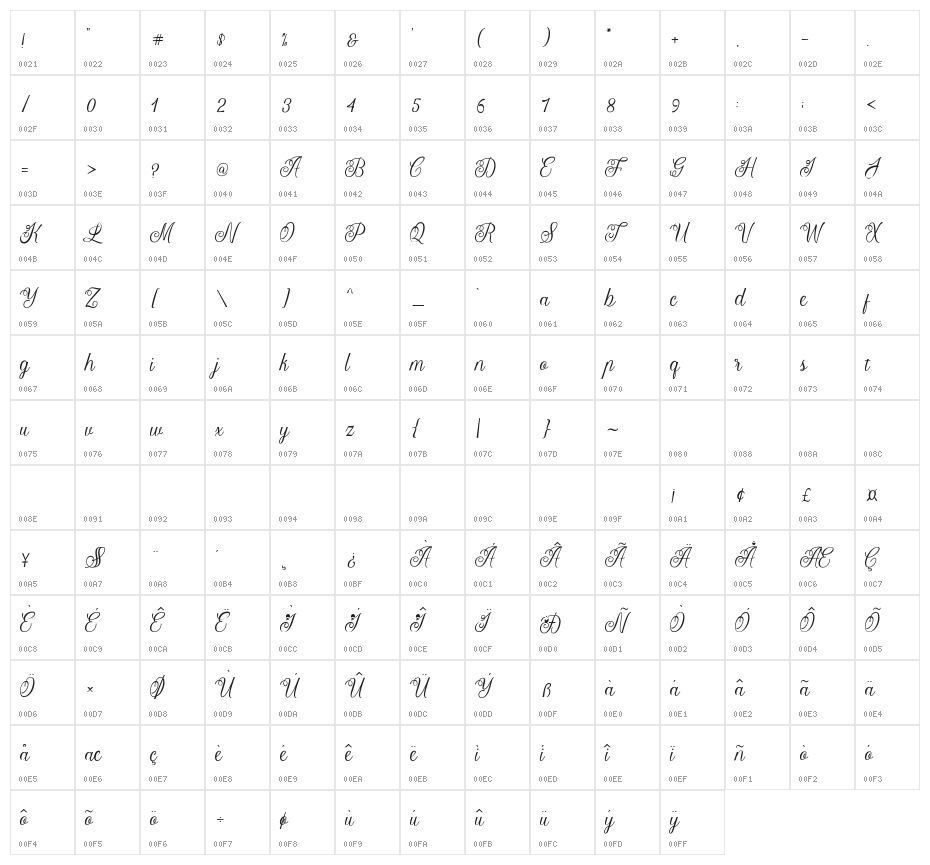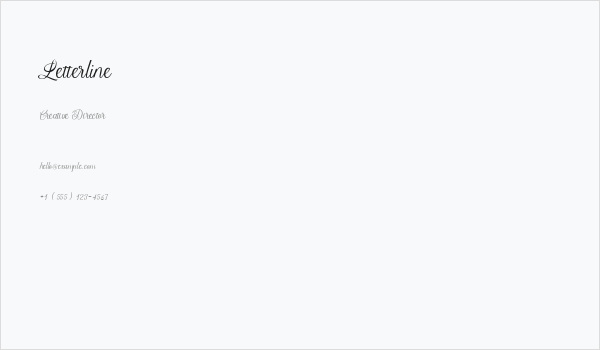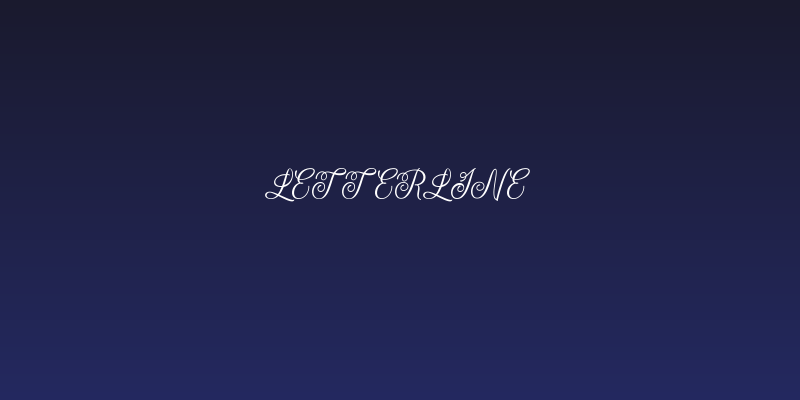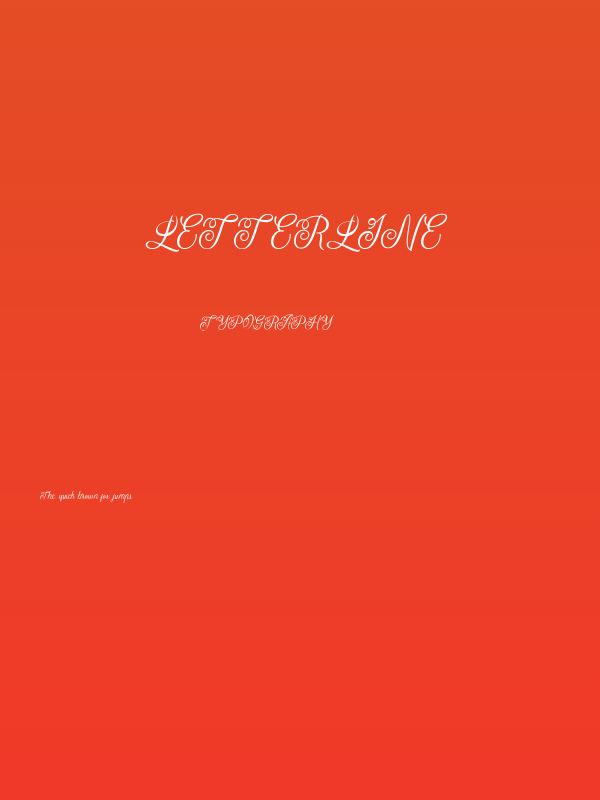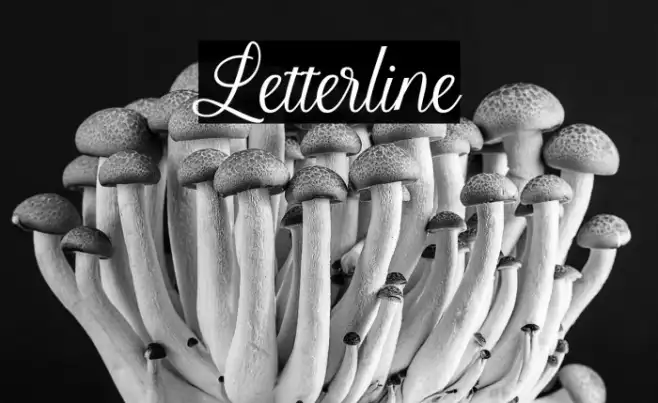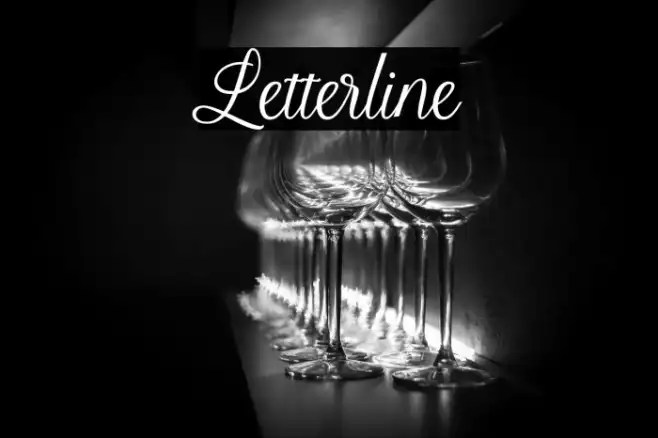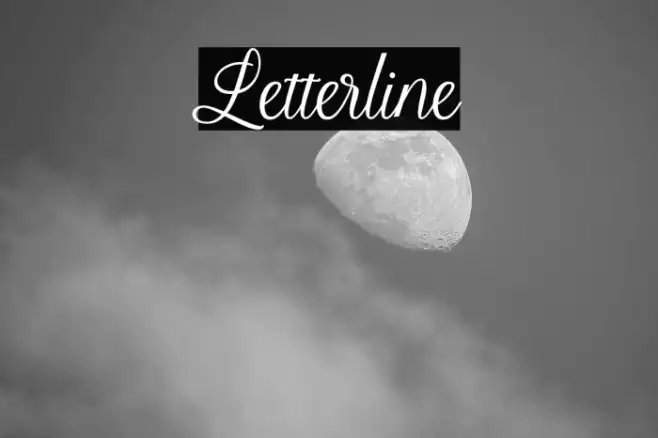
Letterline Font
Letterline Description
This elegant script font features a flowing, cursive style with intricate loops and swirls that give it a sophisticated and decorative appearance. The uppercase letters are particularly ornate, with elaborate flourishes that extend beyond the baseline and cap height, adding a touch of grandeur. The lowercase letters maintain a more restrained elegance, with smooth, connected strokes that enhance readability while preserving the font's overall decorative nature. The numerals and special characters are designed to complement the alphabet, maintaining the same graceful curves and stylish flair. This font is ideal for projects that require a touch of elegance and sophistication, such as wedding invitations, formal event programs, and luxury branding.
| Use Case | Headlines, Invitations, Branding |
| Proposed Projects | Wedding invitations, formal event programs, luxury branding, elegant stationery. |